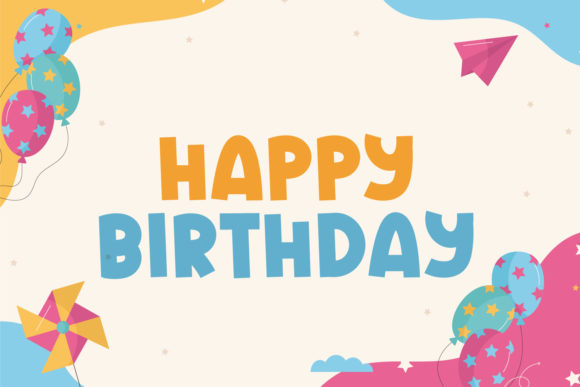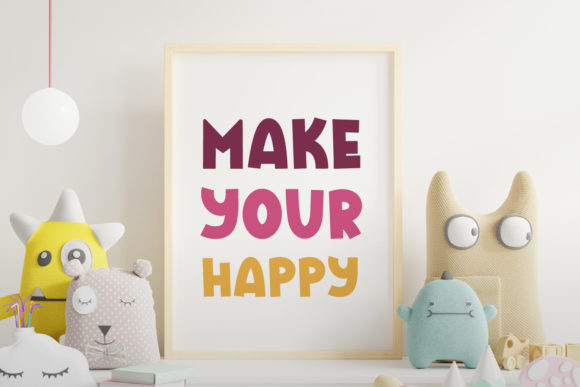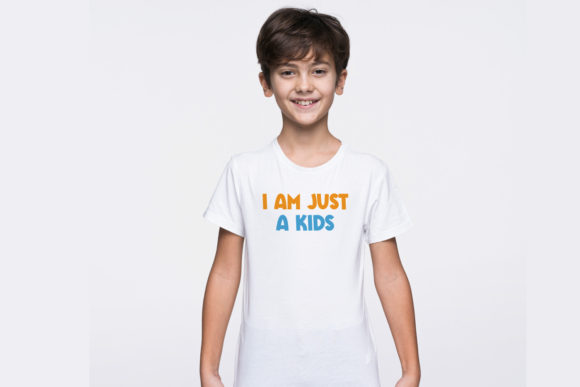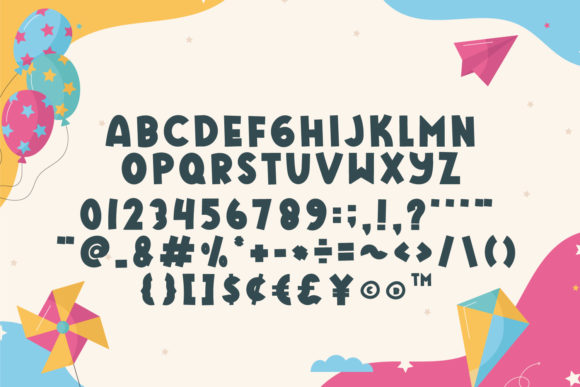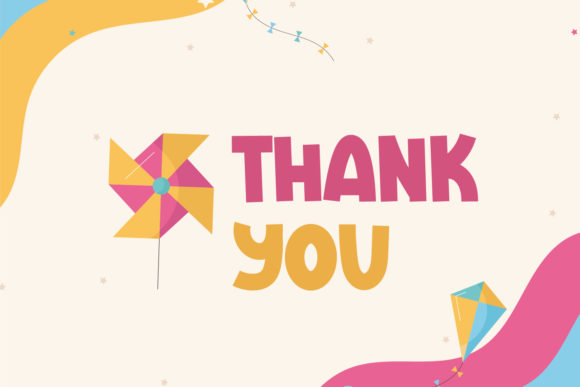
Introduction to Kidsco Font
Kidsco is a bold and thick lettered display font.
This font is perfect for children themed designs, especially when combined with bright colors .
Key Features of Kidsco Font
Why Choose Kidsco Font?